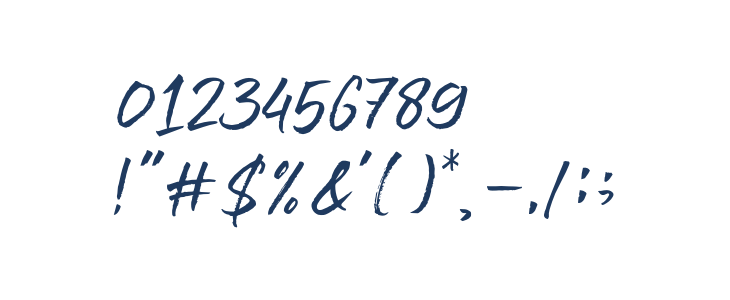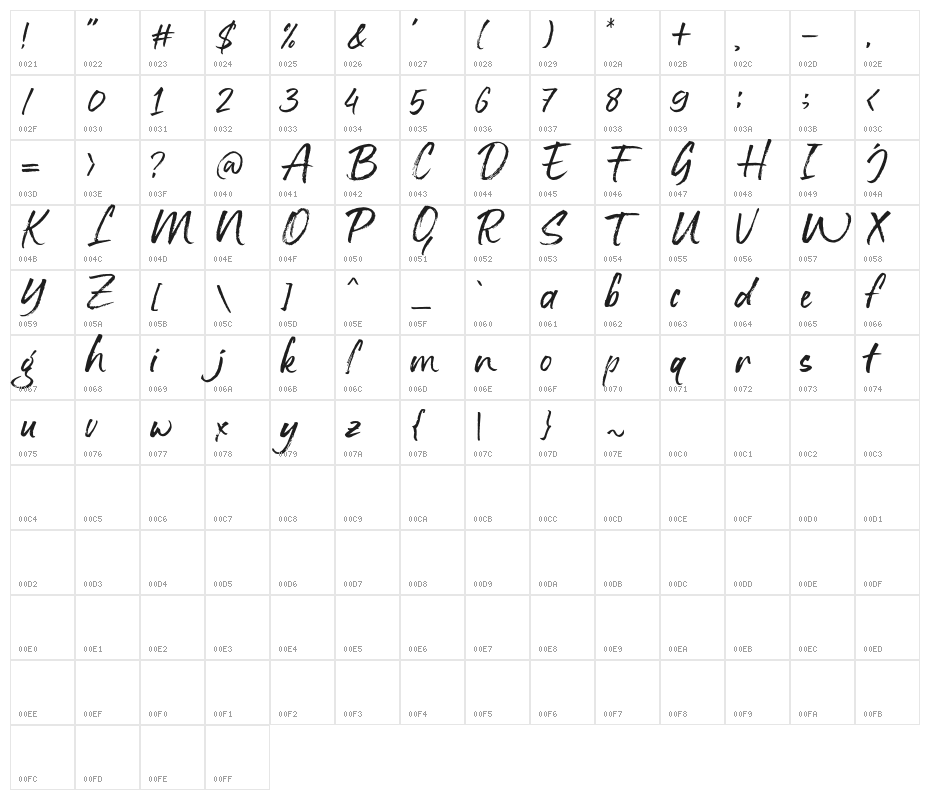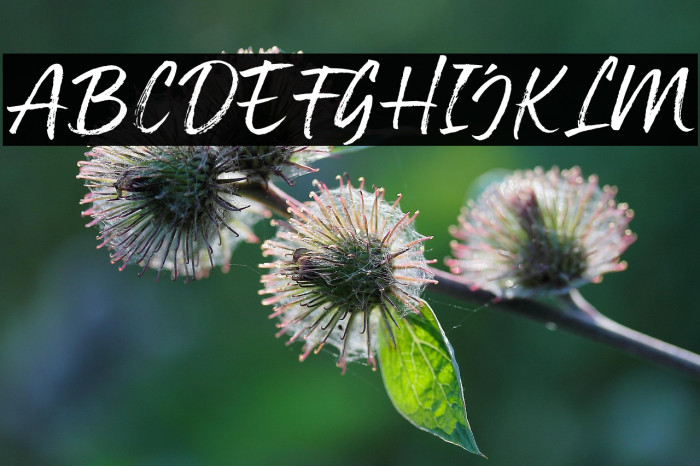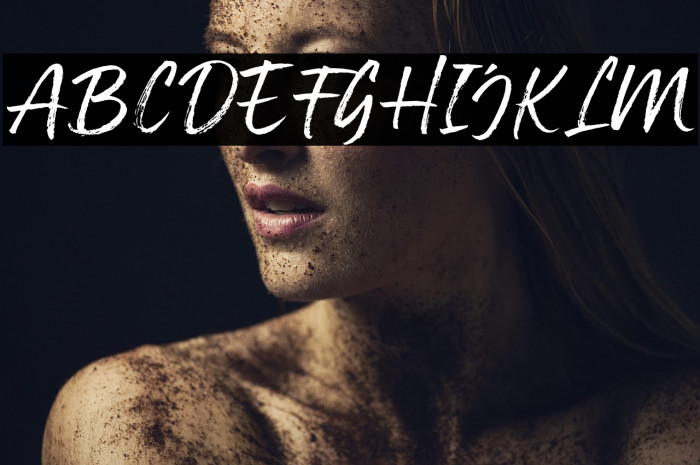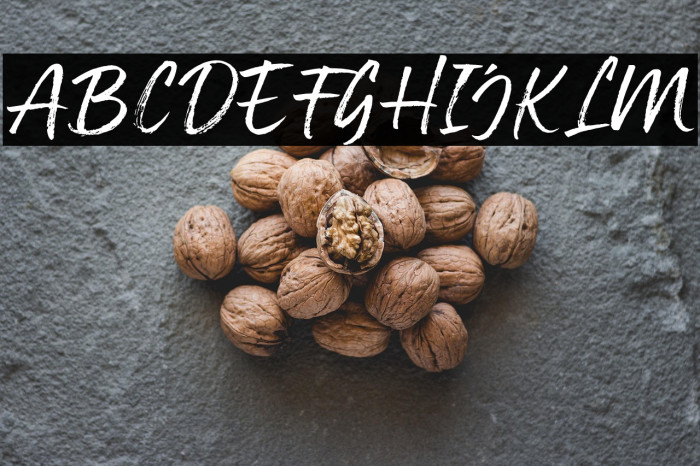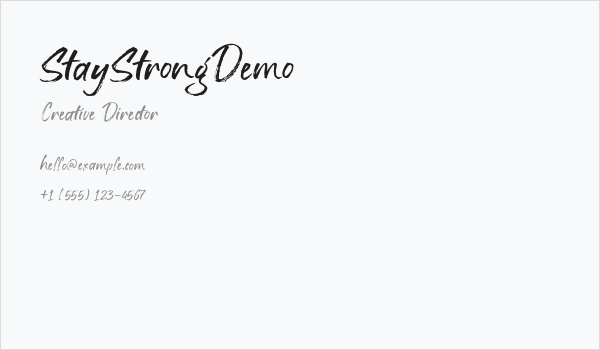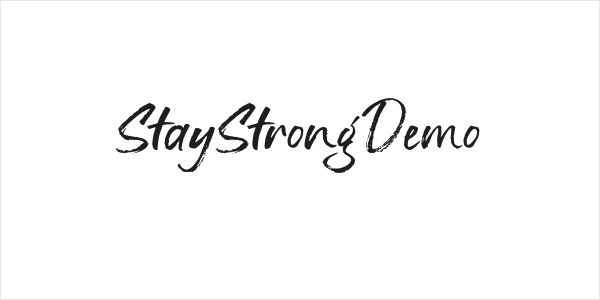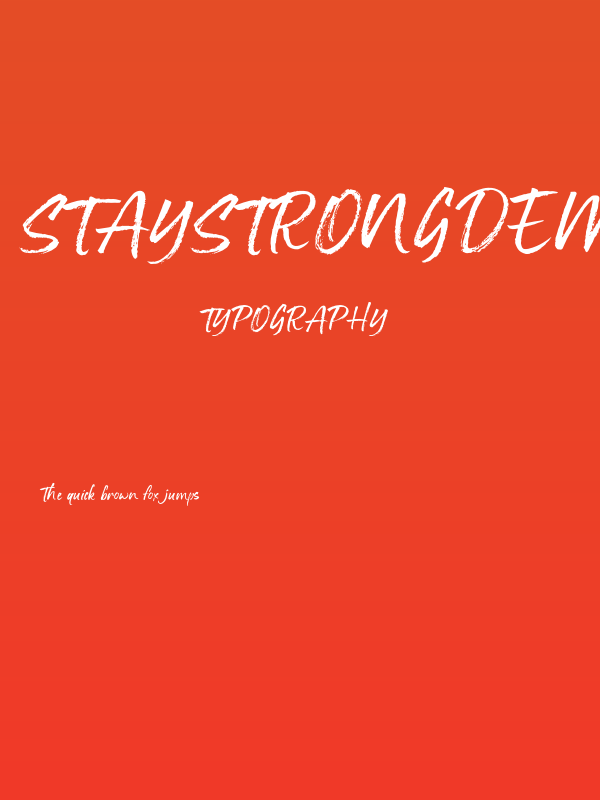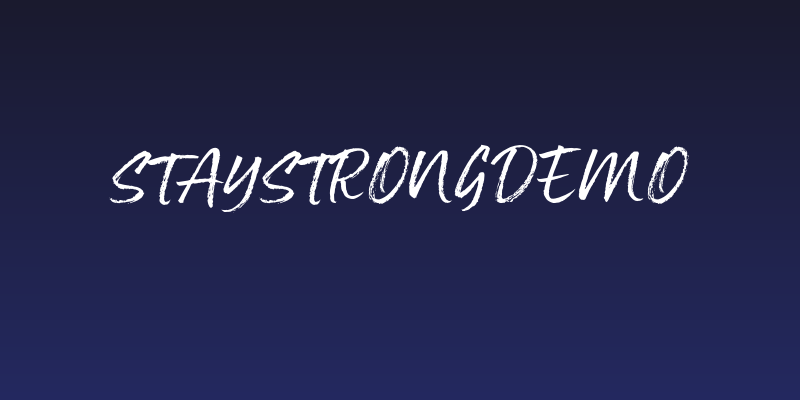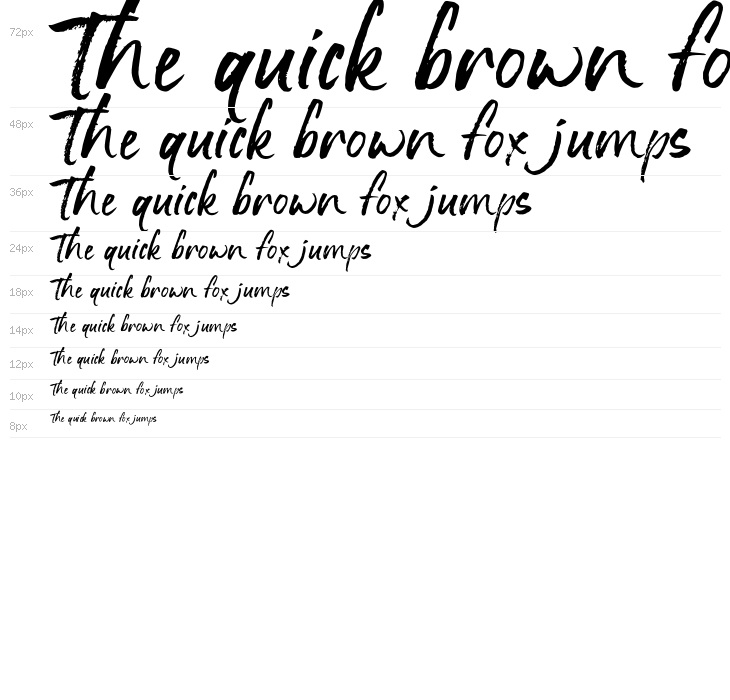
StayStrongDemo Font
StayStrongDemo Description
This font exudes a bold and dynamic handwritten style, characterized by its brush-like strokes and expressive flair. The uppercase and lowercase letters maintain a consistent flow, with varying thickness that adds a sense of movement and energy. The numbers and special characters follow the same aesthetic, ensuring a cohesive look across all elements. The texture of the strokes suggests a hand-painted effect, making it ideal for projects that require a personal touch or artistic vibe. Its unique style makes it stand out, perfect for creative and impactful designs.
Proposed ProjectsIdeal for branding, posters, invitations, and artistic projects requiring a personal touch.